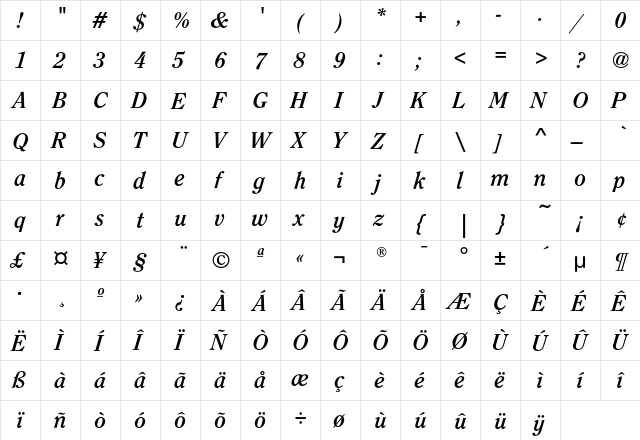
ClearfaceEF-BoldItalic Regular
Design Context for ClearfaceEF-BoldItalic Typeface
ClearfaceEF-BoldItalic is a composed and adaptable typeface that performs quietly and consistently across a wide range of design contexts. The dynamic lean of this cut emphasises speed and emphasis in any layout. Its bold stroke weight gives it real presence on the page.
Pro Tip: Try ClearfaceEF-BoldItalic for annotation and caption copy alongside an upright companion — the contrast in angle creates a dynamic but ordered typographic system.